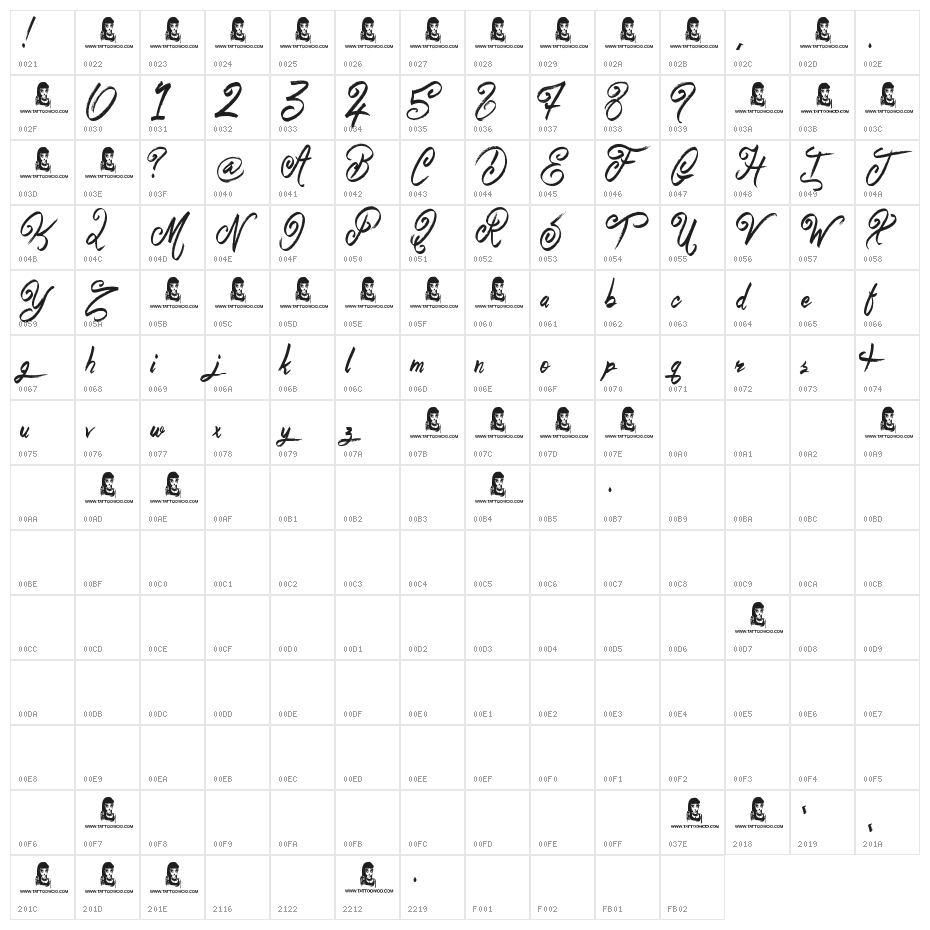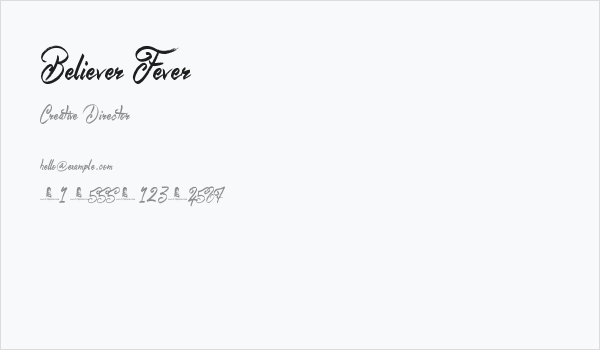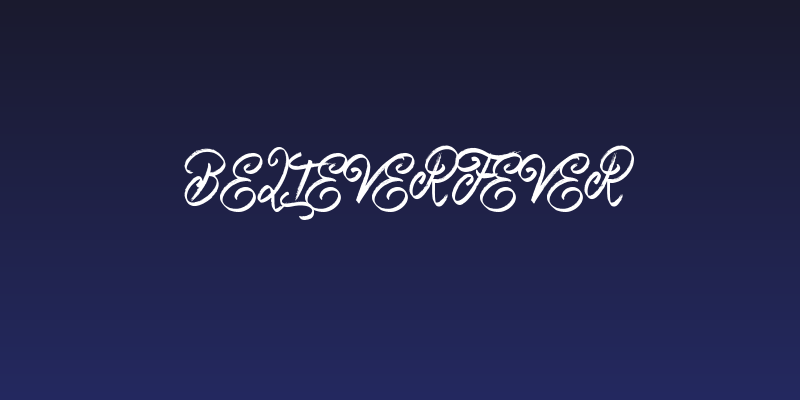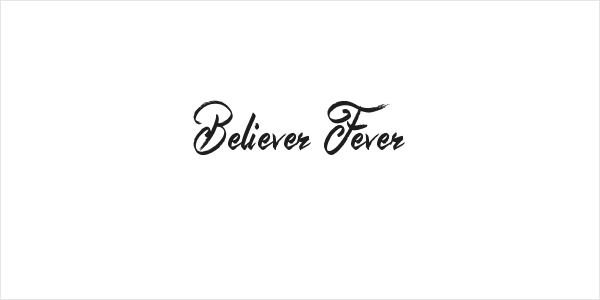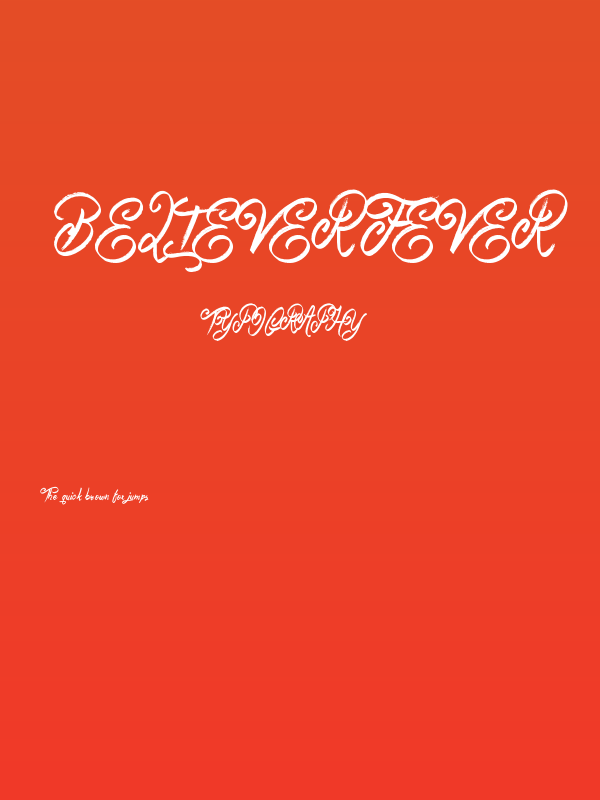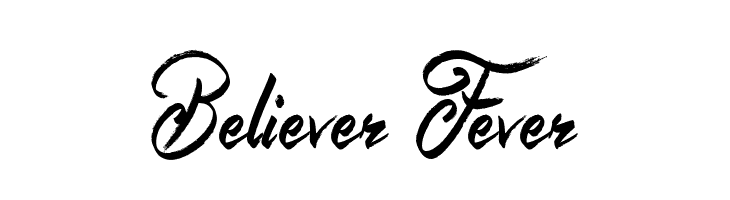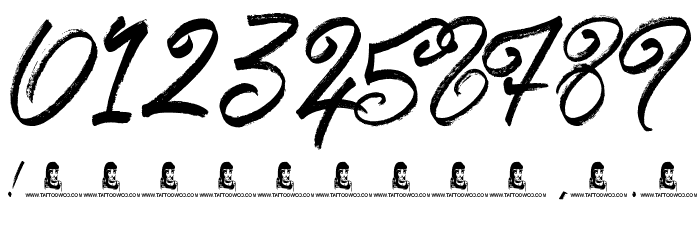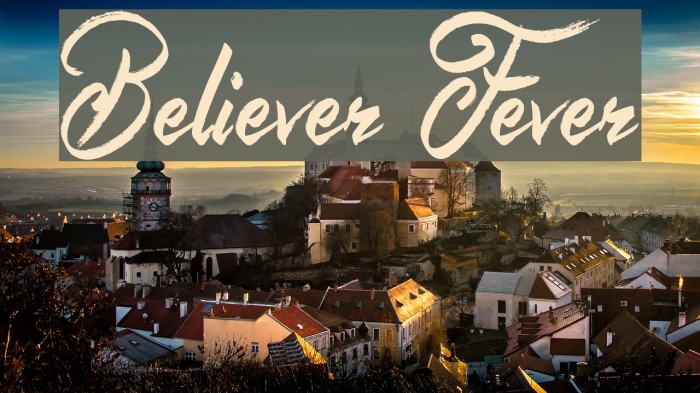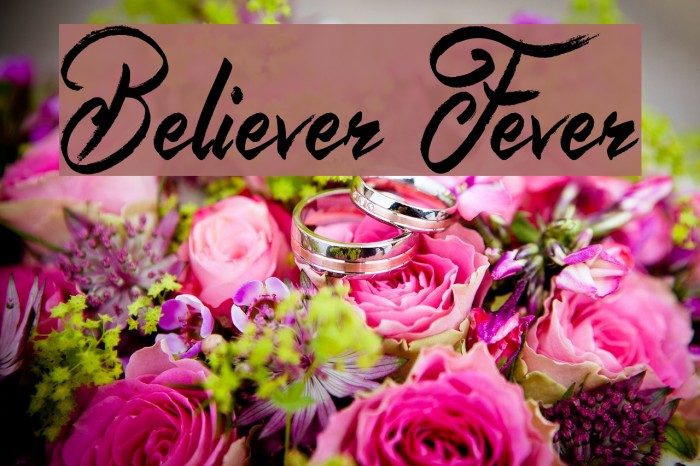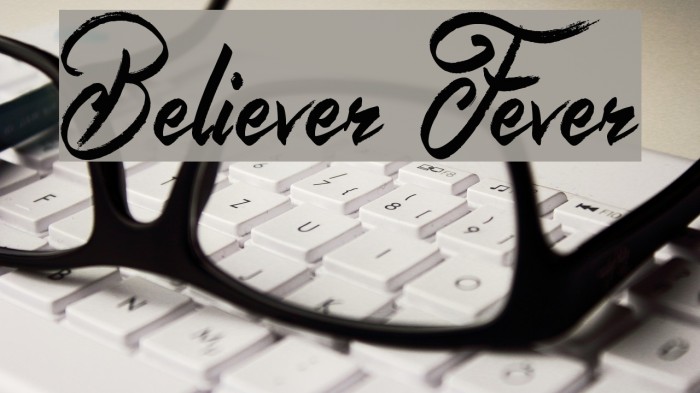
Believer Fever Font
Believer Fever Description
This font exhibits a bold and expressive script style, characterized by its dynamic and flowing strokes. The uppercase letters are particularly ornate, with exaggerated curves and flourishes that give a sense of movement and energy. The lowercase letters maintain a cohesive style, though they are slightly more restrained, allowing for readability while still retaining an artistic flair. The numerals are equally expressive, with a brush-like texture that adds a handcrafted feel. Overall, the font conveys a sense of creativity and individuality, making it suitable for projects that require a personal touch.